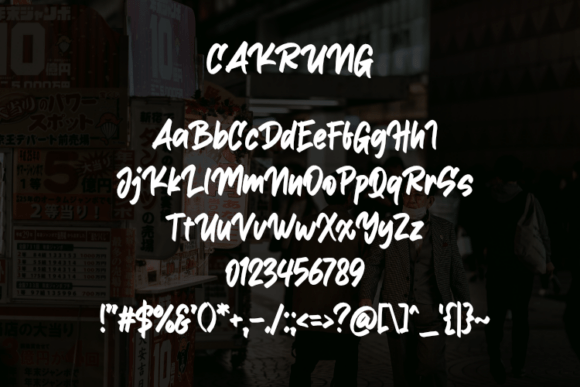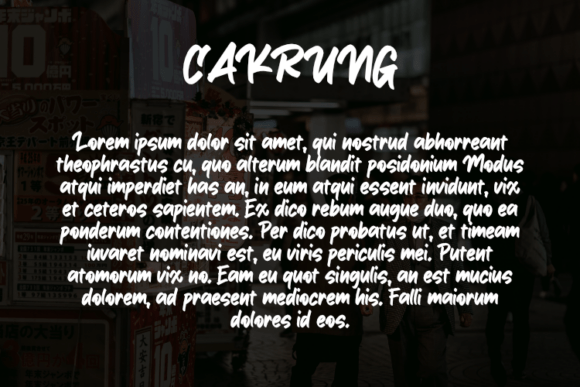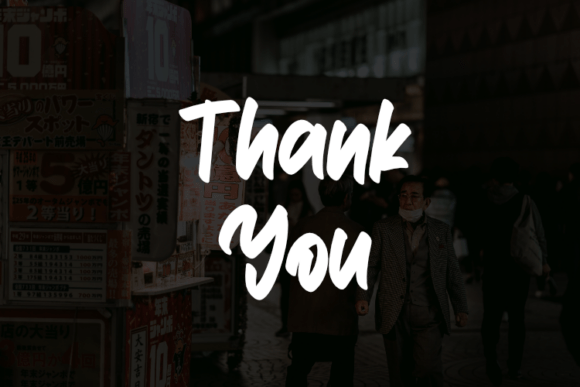
Unlock Your Design Potential with Cakrung Font
In the world of design, the right font can elevate your project from ordinary to extraordinary. For creative fashion endeavors, such as clothing and t-shirt design, a unique and versatile font is essential. Introducing Cakrung, a game-changing font designed to breathe life into your designs. With its perfect blend of style and functionality, Cakrung is poised to revolutionize your design landscape.
The Perfect Marriage of Style and Functionality
Cakrung is more than just a font; it’s a design companion that adapts seamlessly to any project. Whether you’re working on a clothing line, t-shirt design, or any other creative fashion endeavor, Cakrung is the ideal choice. Its unique design elements offer an edgy appeal that will set your creations apart from the rest. With Cakrung, you can experiment with various design styles, from minimalist to bold and expressive.
Ideal for Creative Fashion Endeavors
Cakrung is specifically designed with creative fashion projects in mind. Its versatile design makes it perfect for:
- Clothing design: Create stunning apparel with Cakrung’s unique typography.
- T-shirt design: Add an edgy touch to your t-shirt designs with Cakrung’s bold and expressive font.
- Fashion branding: Establish a strong brand identity with Cakrung’s distinctive style.
Why Choose Cakrung Font?
With so many fonts available, why choose Cakrung? Here are just a few reasons:
- Unique design: Cakrung’s distinctive style sets it apart from other fonts.
- Versatility: Cakrung adapts perfectly to any project, from minimalist to bold and expressive designs.
Tips for Getting the Most Out of Cakrung
To maximize the potential of Cakrung, here are a few design tips:
- Experiment with different sizes: Cakrung looks great in various sizes, from small and subtle to large and bold.
- Play with colors: Cakrung’s edgy design looks great in a range of colors, from bright and bold to muted and pastel.
- Combine with other fonts: Cakrung pairs well with other fonts, creating a unique and visually appealing design.
In conclusion, Cakrung is a game-changing font that offers a perfect blend of style and functionality. With its unique design, versatility, and compatibility with all design software, Cakrung is the ideal choice for creative fashion endeavors. Whether you’re a professional designer or a crafty DIY enthusiast, Cakrung is sure to elevate your designs and give them an edgy appeal. Unlock your design potential with Cakrung Font and take your creations to the next level.